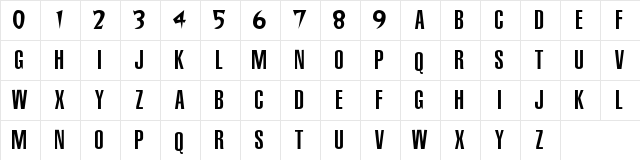
NBA Timberwolves Regular Free Font
NBA Timberwolves Regular
Design Context for NBA Timberwolves
NBA Timberwolves is a composed and adaptable typeface that performs quietly and consistently across a wide range of design contexts.
Pro Tip: Use NBA Timberwolves in both headline and body roles to test its range before committing to a single application.